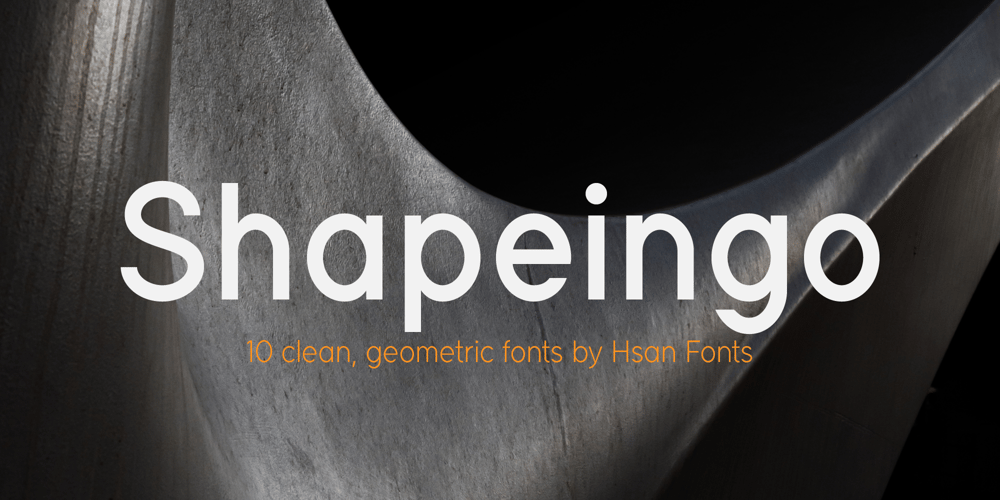
Shapeingo Font Family was designed by Hsan Hajji and published by Hsan Fonts. Shapeingo contains 10 styles and family package options. Shapeingo is a modern elegant typeface that would be perfect for branding, logos, headlines or captions. The font could also work as a stylish text overlay on any background image you like, minimalist and warm while still being versatile enough to use anywhere!